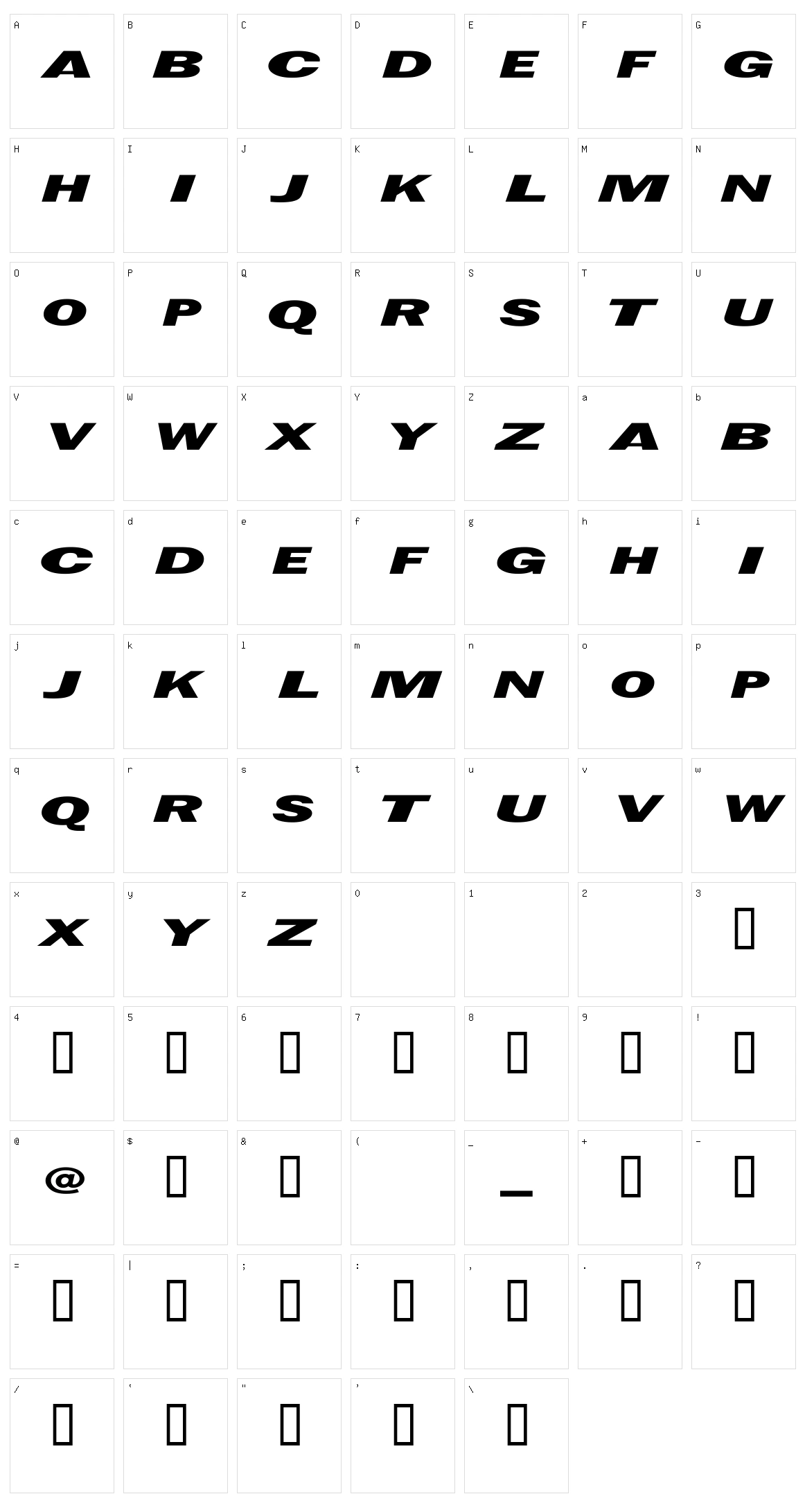
Metal Gear Solid
METAL GEAR SOLID FONT PACK
i) A font mimicking the font used in the logo for "Metal Gear Solid" created by Steve Snape (Manager of Solid Snake's Game Shrine)
ii) A font mimicking the "Tactical Espionage Action" text above the Metal Gear Solid logo, and the "Solid" in the bar below the "Metal Gear" created by
Steve Snape (Manager of Solid Snake's Game Shrine)
iii) A font mimicking the "Metal Gear Sold 2" logo created by Steve Snape (Manager of Solid Snake's Game Shrine)
iv) A font mimicking the one used for the menus in Metal Gear Solid 2.
The forth font is based upon a font from www.metalgearsolid2online.com called SF Squareheaded.